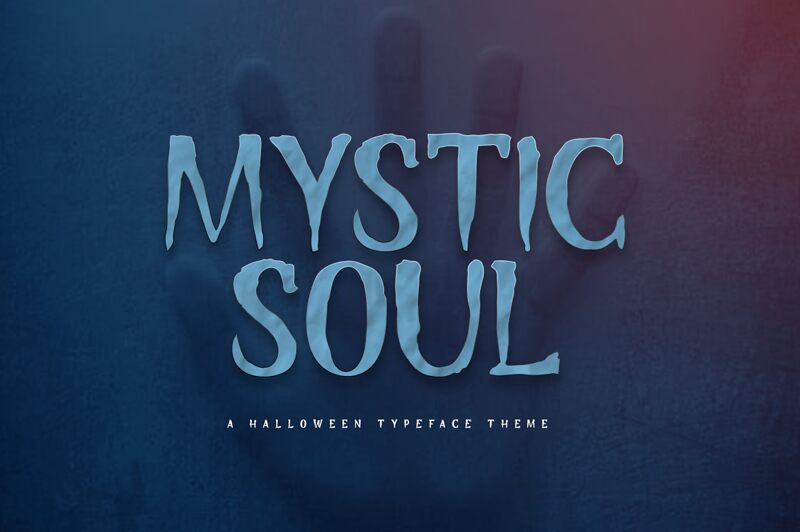
Mystic Soul, an eerie creation by Khurasan, is a hauntingly beautiful holiday font that captures the essence of Halloween. With its eroded style and spine-chilling appeal, it is perfect for projects that aim to evoke a sense of fear and mystery.
From spooky invitations and horror-themed posters to spine-tingling book covers and chilling party decorations, Mystic Soul will add an extra dose of frightful delight. Let this font bewitch your audience with its spellbinding design and bring your Halloween projects to life in the most bone-chilling way possible.